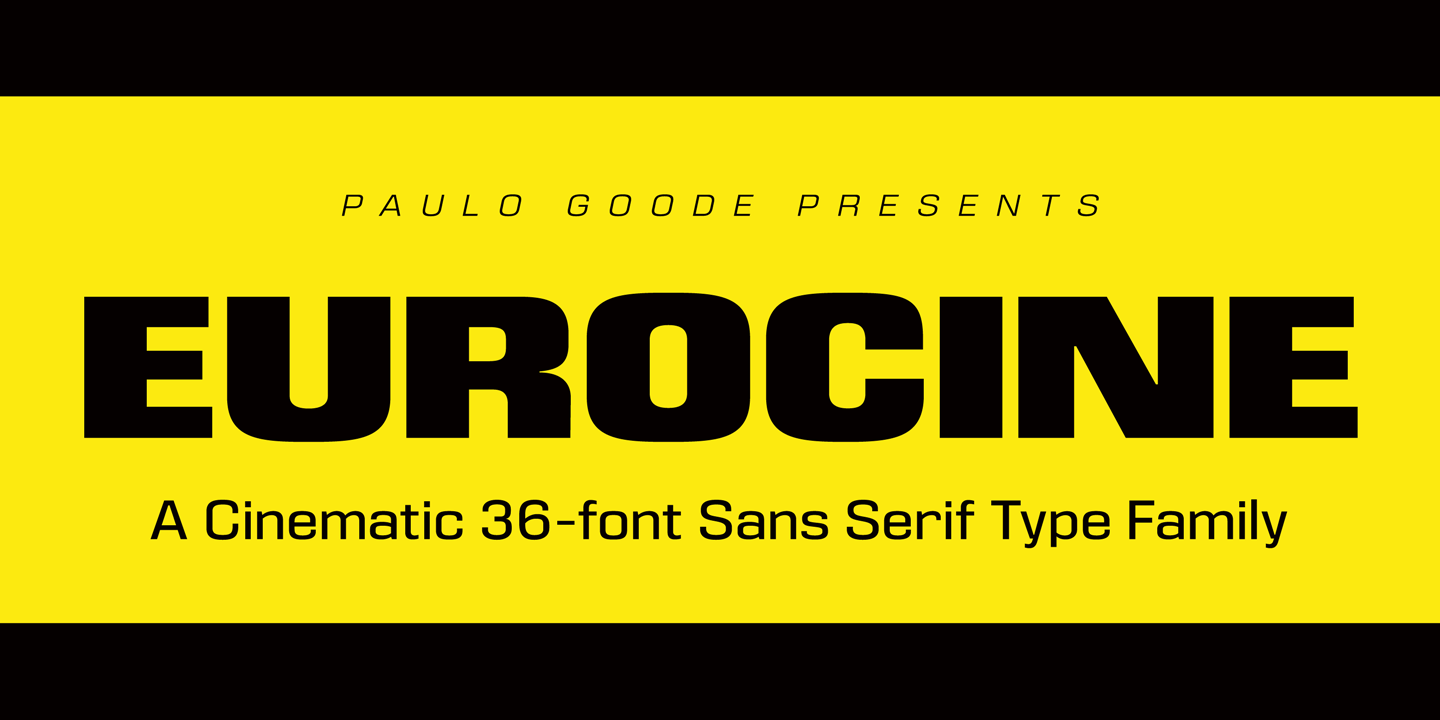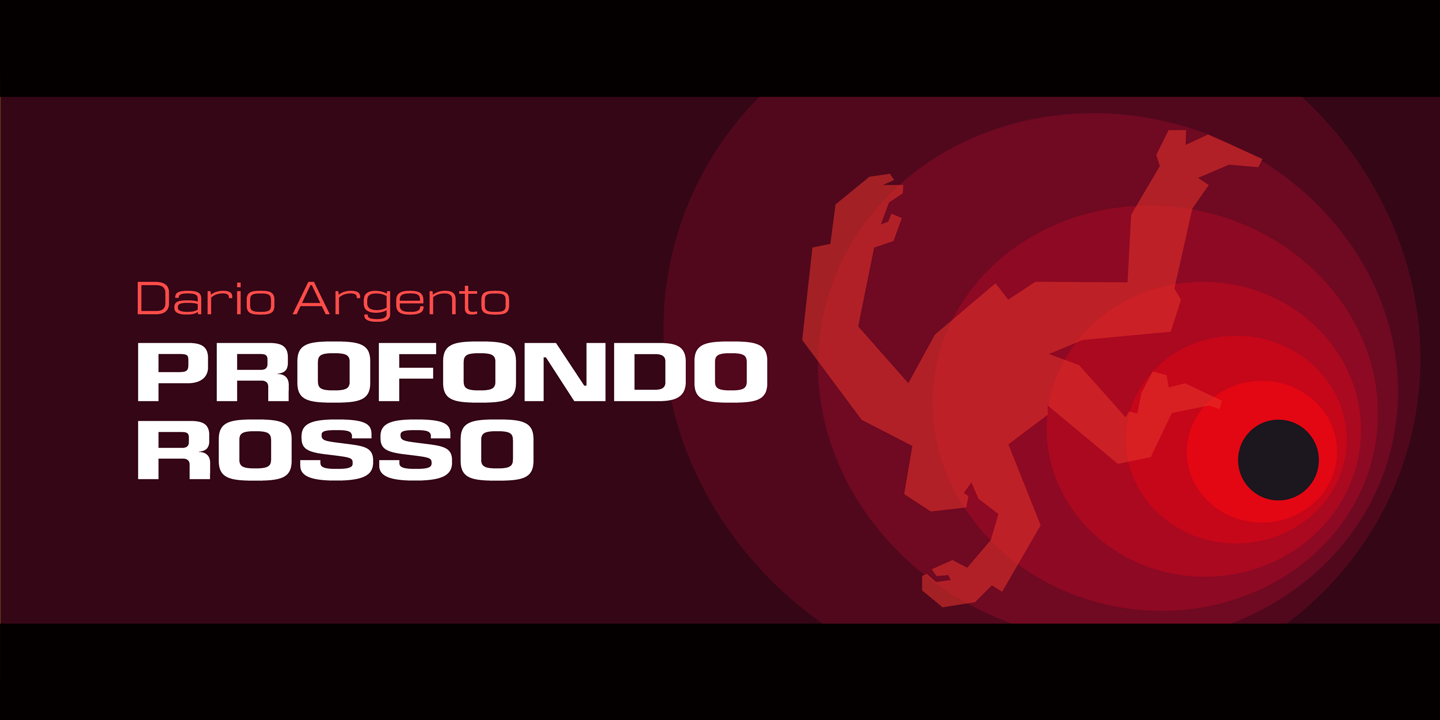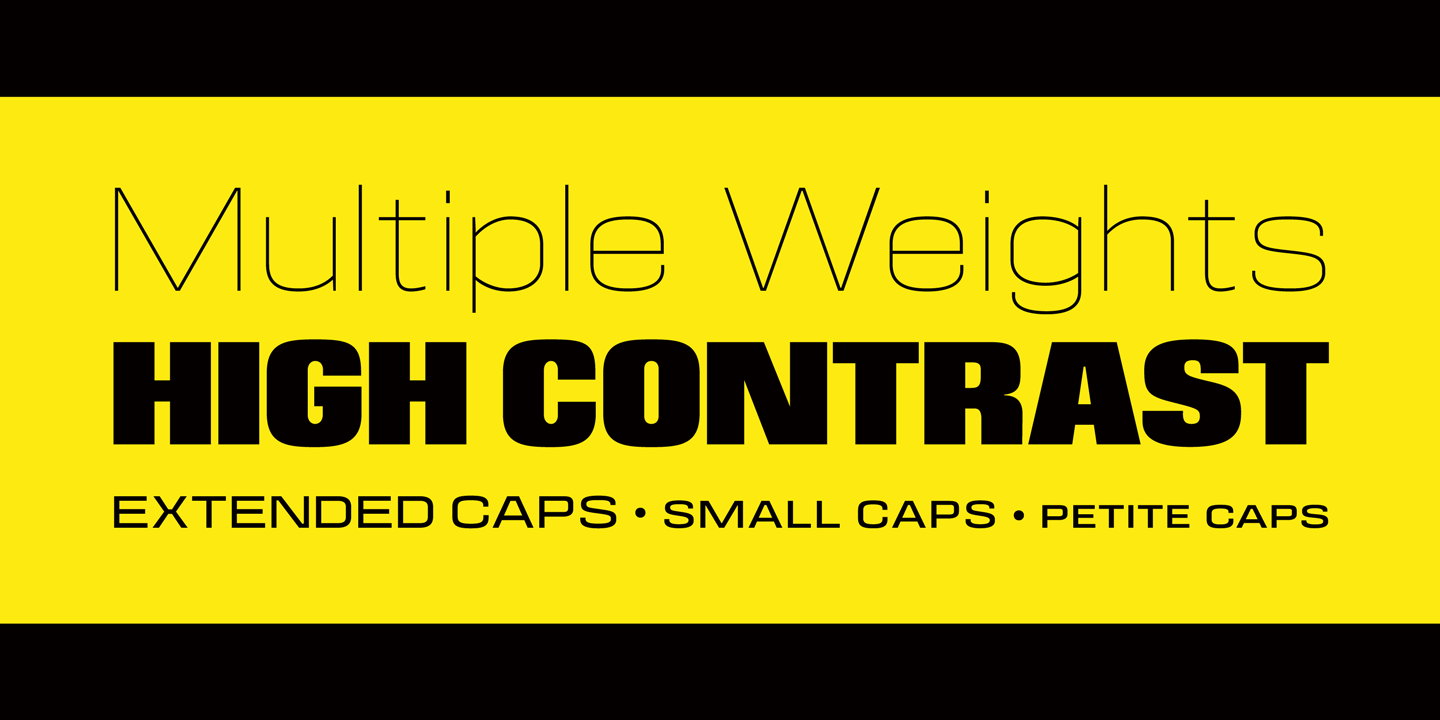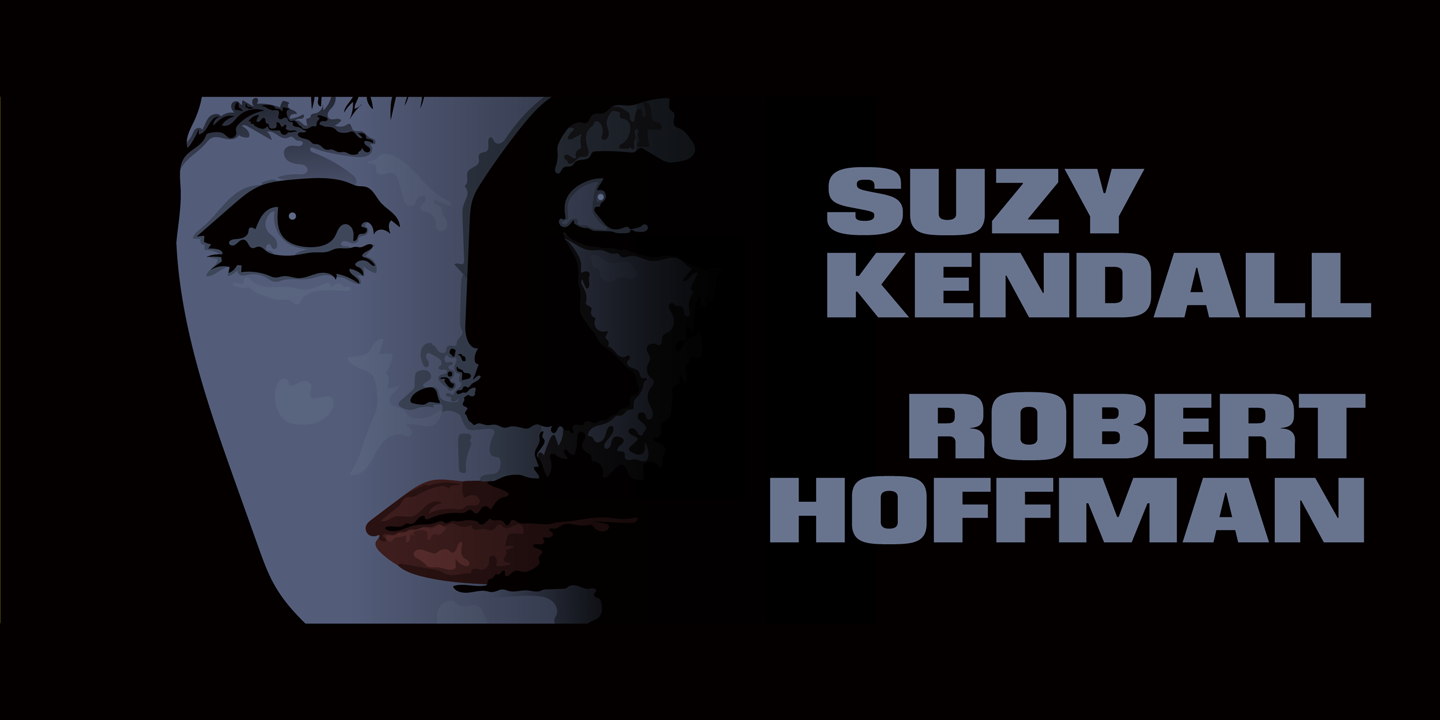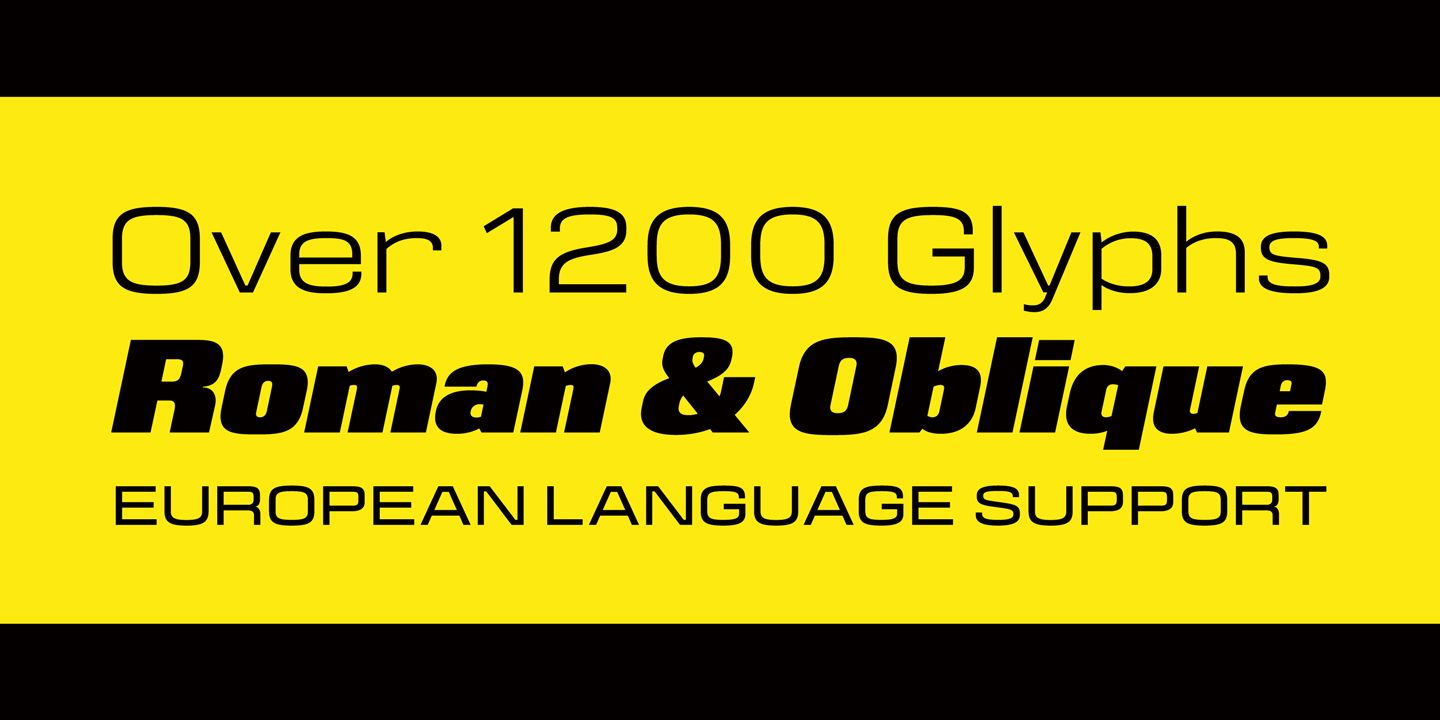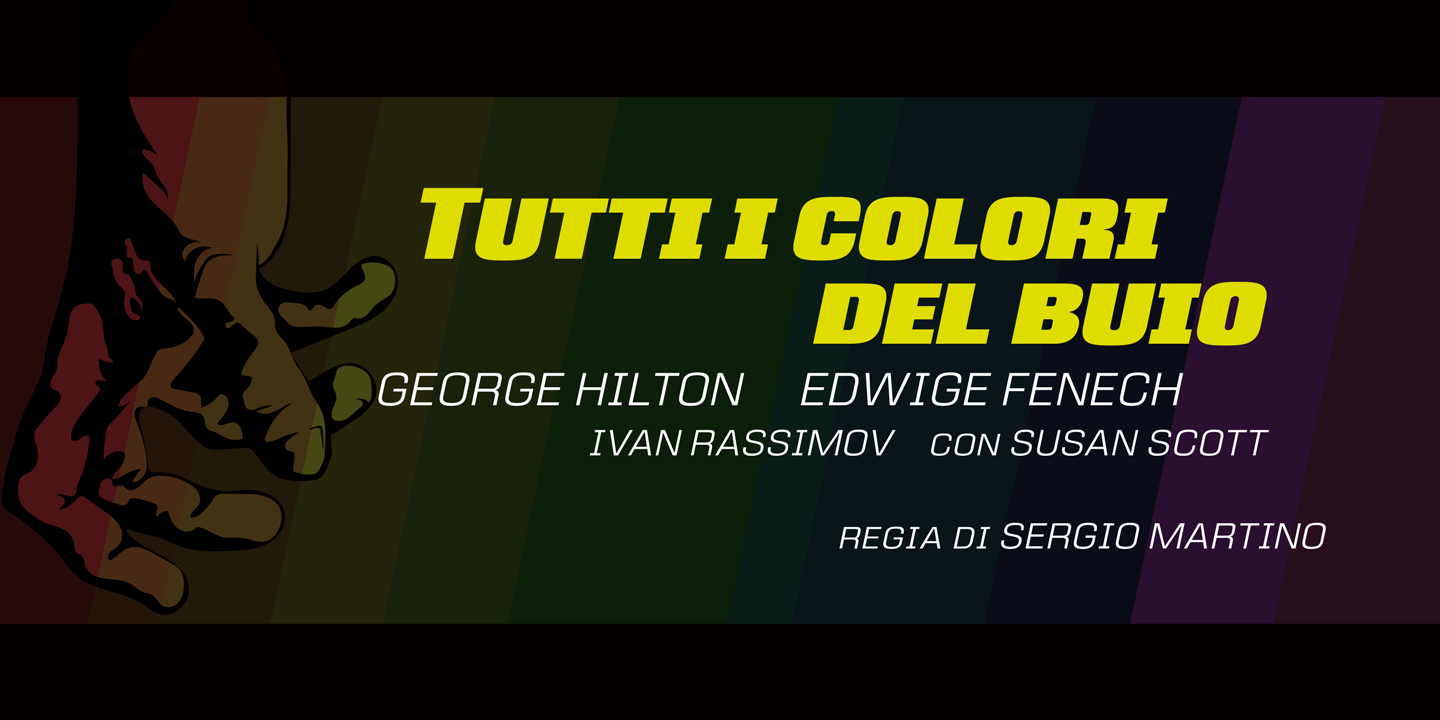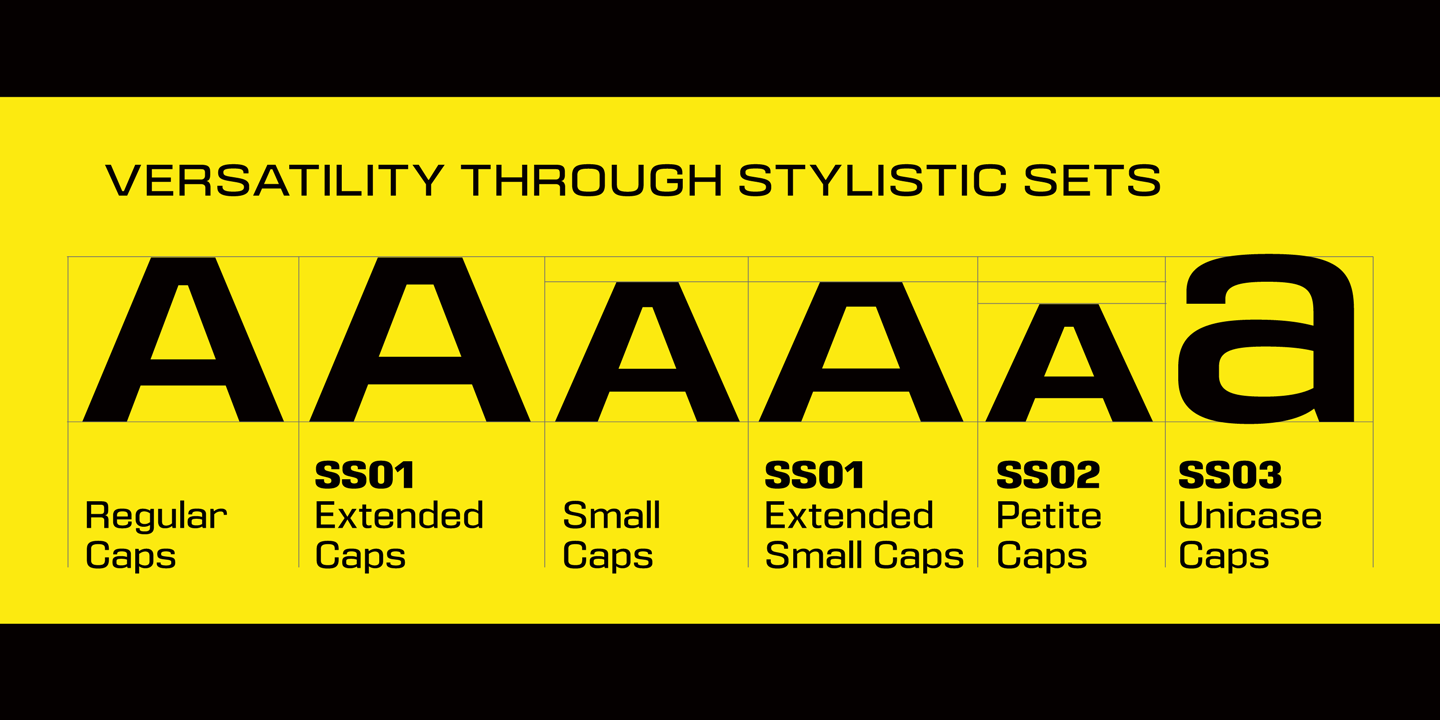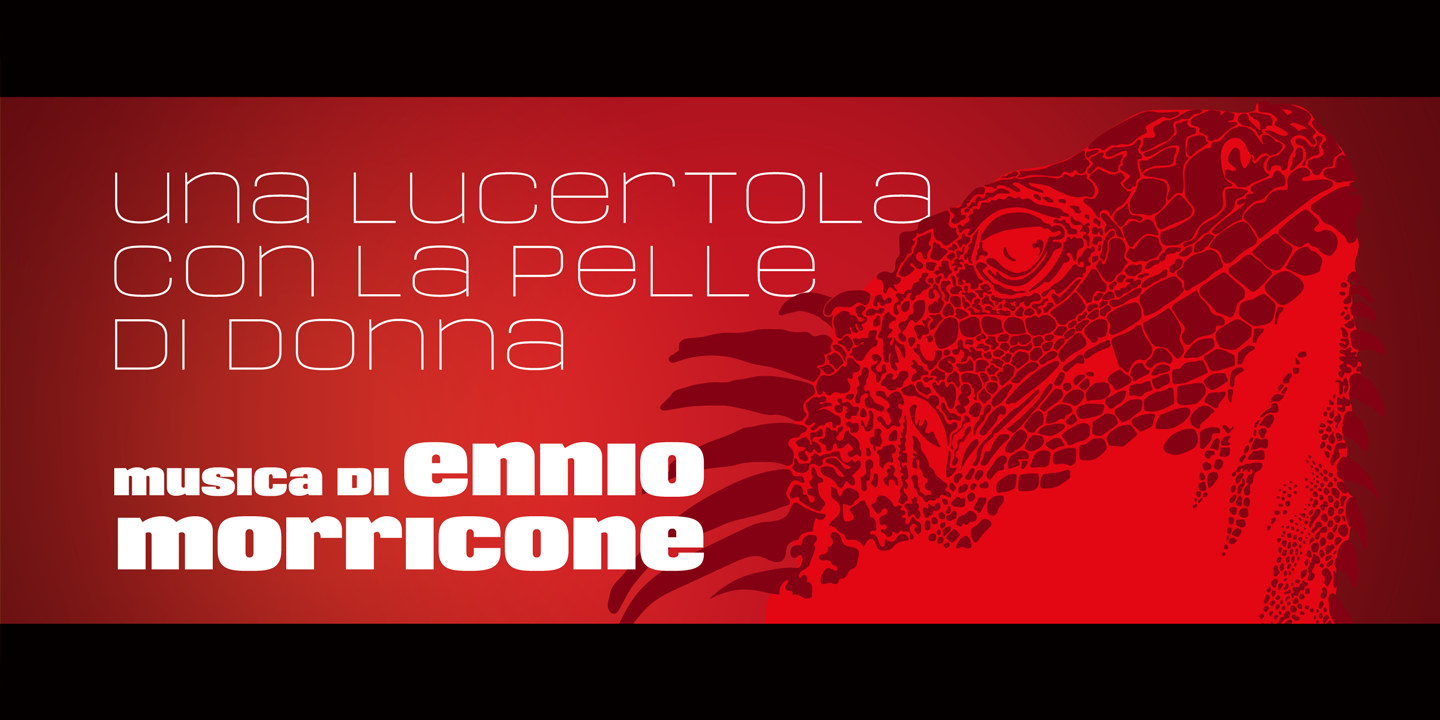
About the Eurocine Font
About Eurocine Font Family Eurocine is an expansive display typeface – a square sans serif that’s perfect for titling, headlines, logotype and branding, This 36-font family is packed with features to make it supremely versatile, This typeface attempts to capture the mood of movie credits from European Cinema in the 1970s, with a focus on Giallo films in particular
In terms of style, Eurocine sits somewhere between Walter Baum and Konrad Friedrich Bauer’s Folio, and Aldo Novarese’s Eurostile, With Eurocine you get a more versatile typeface by way of its small caps and additional stylistic sets giving you extended caps, extended small caps, and petite caps, as well as upper and lowercase unicase
Creating typographic masterpieces of your own will be so much easier!Key features:• 6 Weights in Roman and Oblique• 3 Widths – Narrow, Regular, Wide• Extended Caps• Small Caps• Extended Small Caps• Petite Caps• Unicase• Old Style Figures• European Language Support (Latin)• 1,200 glyphs per font